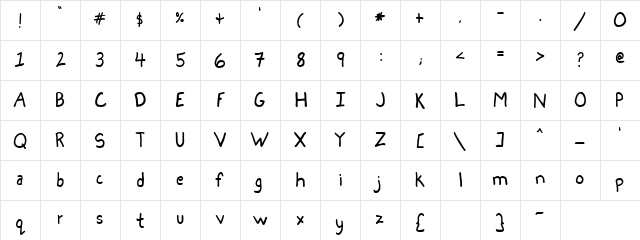
PC Kimmi Regular
Design Context for PC Kimmi Typeface
PC Kimmi is a composed and adaptable typeface that performs quietly and consistently across a wide range of design contexts.